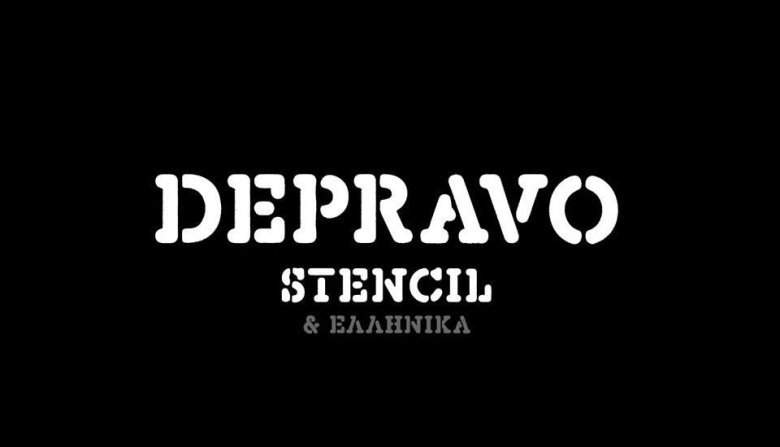
Depravo Stencil Font
Continue with the free stencil font package. Introducing Depravo Font! It is designed and shared by Iordanis Passas. Depravo is All Caps display typeface with solid, masculine, urban, sporty & bold character. This font works well to draw attention in titles, headlines, and large text with it’s aggressive horizontal expanse.